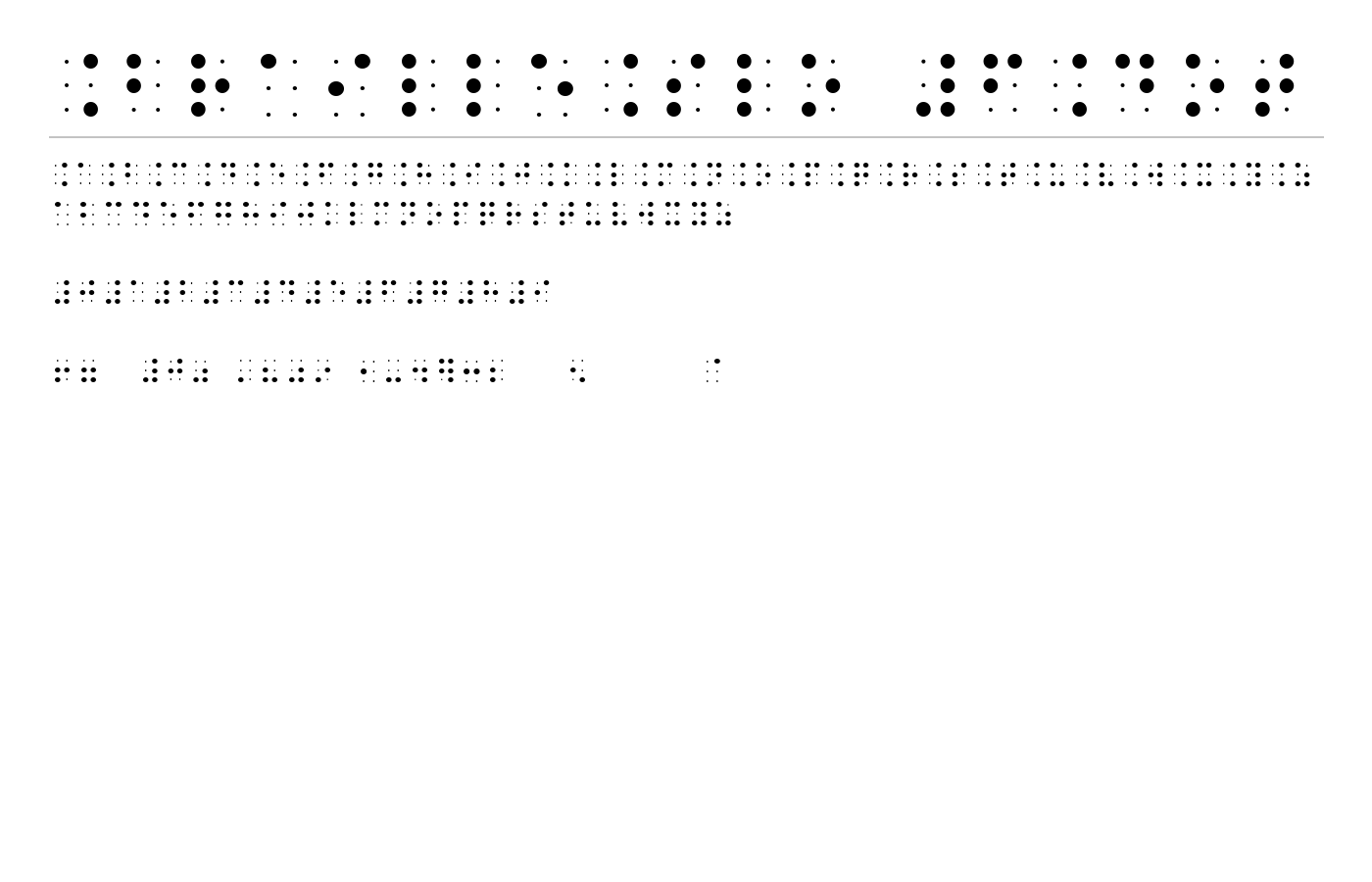
BrailleSlo 6Dot Font is a unique, tactile-inspired sans serif typeface that mimics the distinct dot patterns of traditional six-dot braille. Its consistent dot size and spacing create a clean, minimalist aesthetic that balances functionality with modern design. Ideal for inclusive projects, educational materials, and creative branding, this font adds an innovative, accessible touch while maintaining clarity and simplicity.
BrailleSlo 6Dot Font
About BrailleSlo 6Dot Font
| Font family | BrailleSlo 6Dot Font |
| Designer | Polona Jenčič |